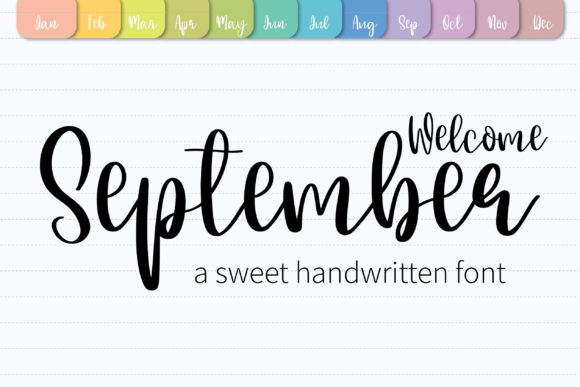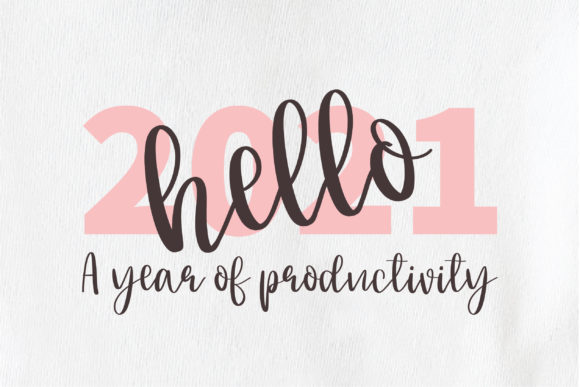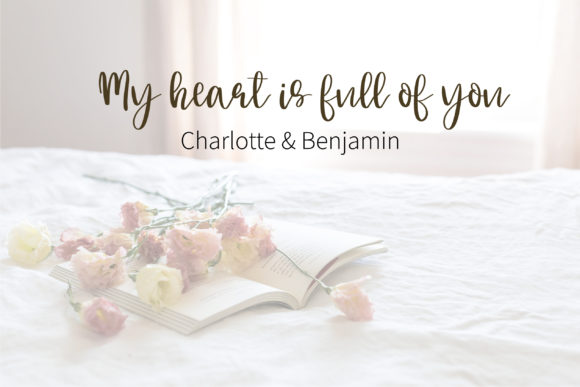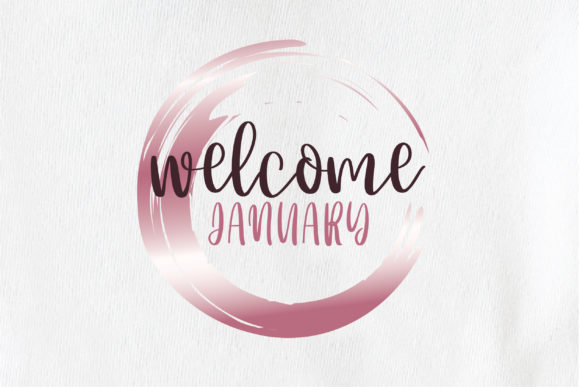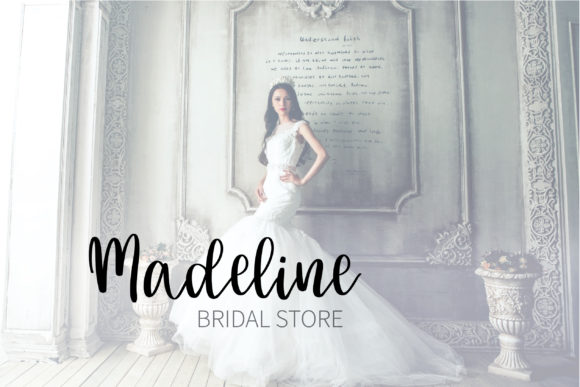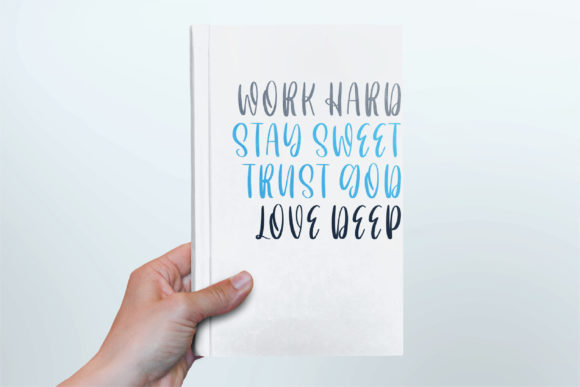
About Welcome September Font
Introducing “Welcome September,” a sweet and flowing handwritten font that exudes warmth and charm. With its versatile and delightful style, “Welcome September” is the perfect choice for a wide range of design projects. From enchanting wedding invitations to beautiful stationary art and eye-catching social media posts, this font will add a touch of beauty and grace to your creations.
“Welcome September” boasts a gentle and inviting handwriting style that captures the essence of the season. Each letter is lovingly crafted, showcasing the font’s natural and flowing character.
Imagine using “Welcome September” to create heartwarming and enchanting wedding invitations, setting the perfect tone for a September celebration filled with love and joy.
For stationary art, “Welcome September” becomes a symbol of creativity and elegance, adding a touch of enchantment to every project.
In eye-catching social media posts, “Welcome September” brings a sense of warmth and charm, captivating your audience and spreading the spirit of the season.
With its versatility and sweet appeal, “Welcome September” becomes an essential tool for all your creative endeavors.
In conclusion, “Welcome September” is more than just a font; it’s a celebration of the season and the beauty it brings. With its sweet and flowing style, “Welcome September” becomes a cherished companion for all your design projects. Fall in love with the enchanting allure of “Welcome September” and watch as your creations come alive with warmth and grace. Let your imagination bloom in the sweet and flowing embrace of “Welcome September,” the handwritten font that defines the spirit of the season and brings a touch of beauty to every design.